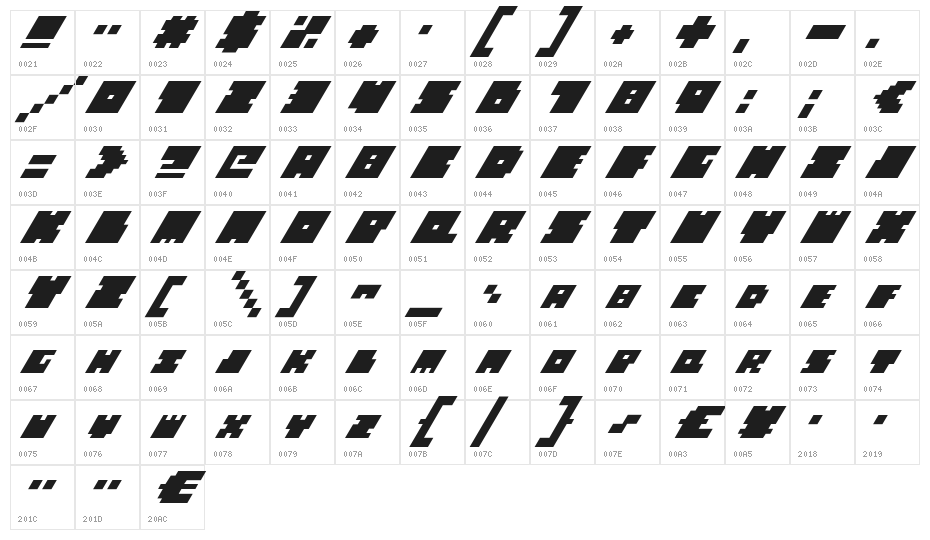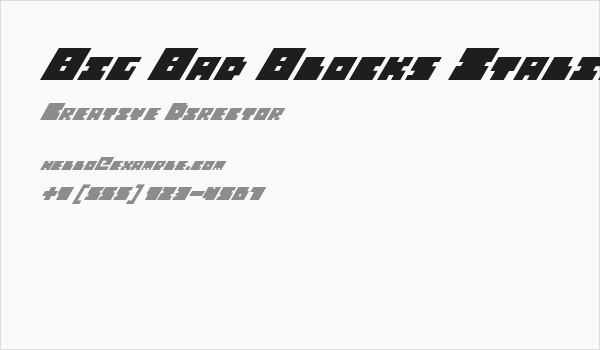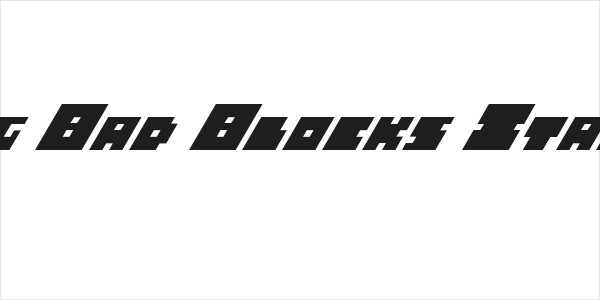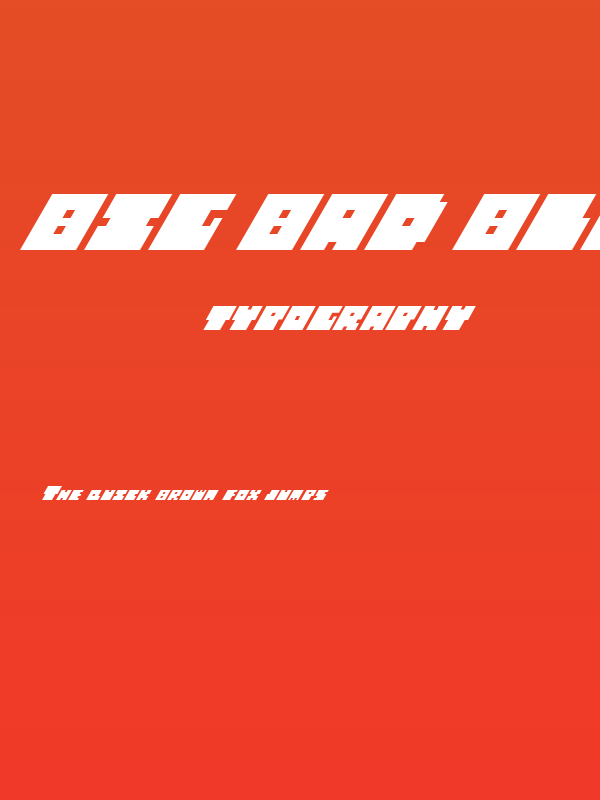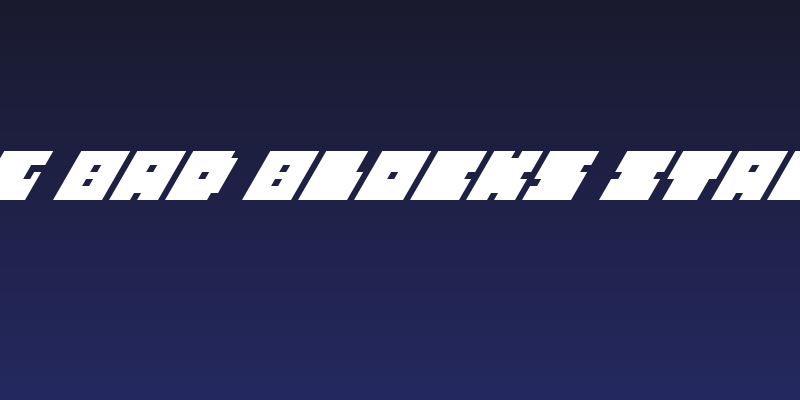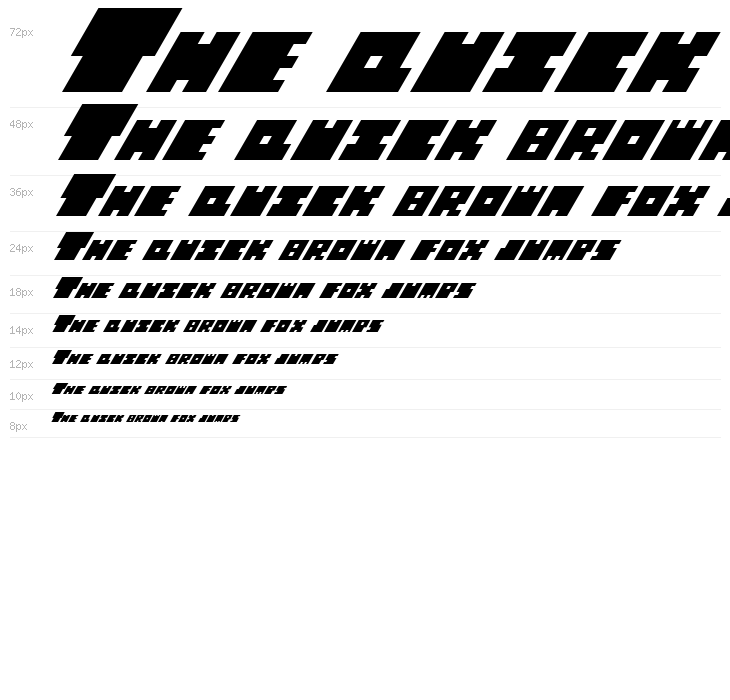
Big Bad Blocks Italic Font
Big Bad Blocks Italic Description
This font features a bold, blocky design with an italic slant, giving it a dynamic and aggressive appearance. The characters are constructed with sharp angles and thick strokes, creating a strong visual impact. The uppercase and lowercase letters maintain a consistent style, with the lowercase slightly smaller but equally bold. Numbers and special characters follow the same design principles, ensuring uniformity across all glyphs. The font's geometric nature and heavy weight make it ideal for attention-grabbing headlines or titles. Its unique style is reminiscent of retro video game aesthetics, adding a nostalgic yet modern touch to any project.
| Overall Style | Modern, Retro |
| Proposed Projects | Ideal for video game titles, posters, logos, and any design requiring a bold, impactful typeface. |